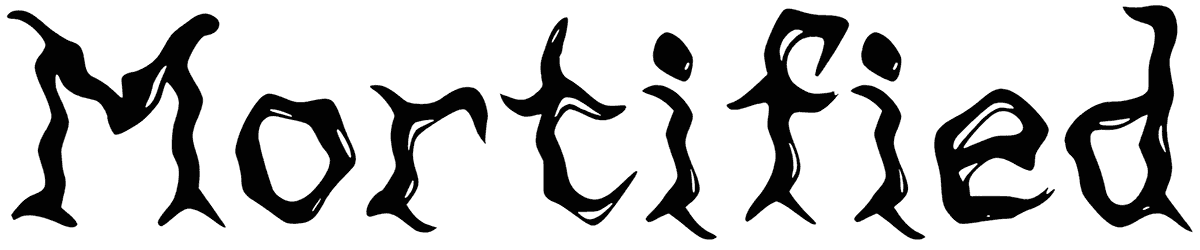
Mortified Font
Designed byWalter E Stewart
Would you like to show a more shocking style to your audiences? As a Halloween font, Mortified, with its shaky face, can make this and convey a stressful vibe. This wavy font can be used for many projects and themes, like movies, posters, invitations, etc. With an A-Z support of characters, you have a perfect chance to adorn any shirt or long text.